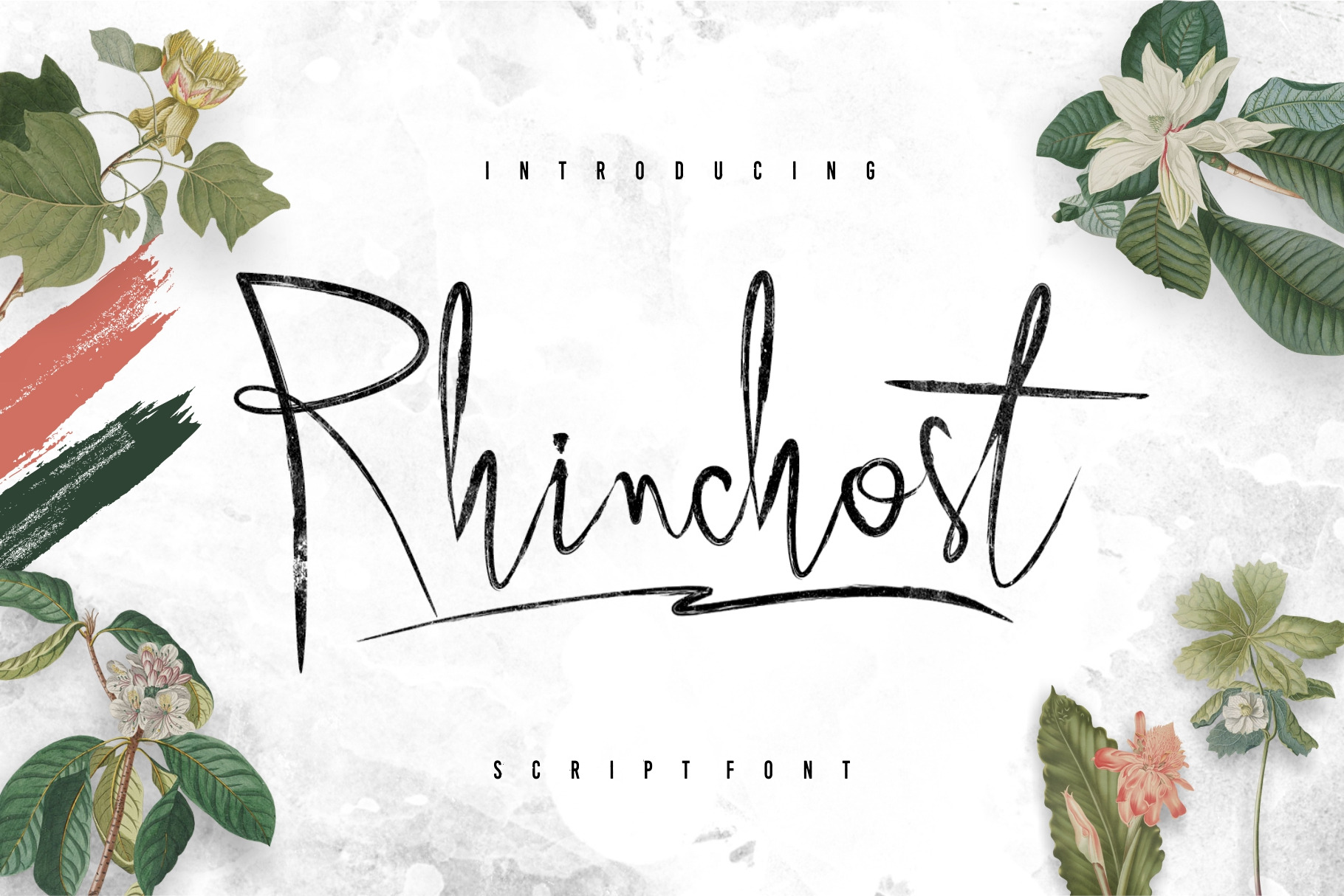
Rhinchost Typeface
Give your designs an authentic handcrafted feel. “Rhinchost Typeface” is perfectly suited to stationery, busuness card, logos and much more.